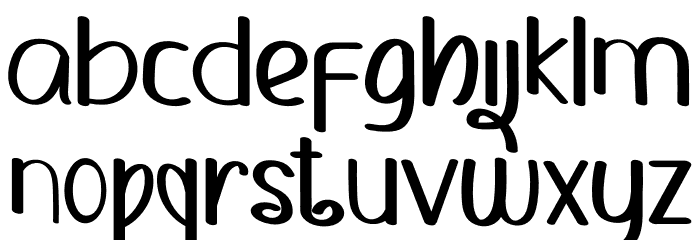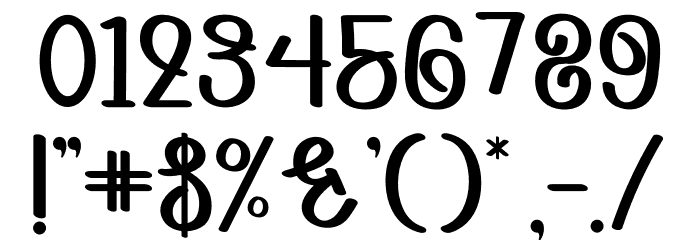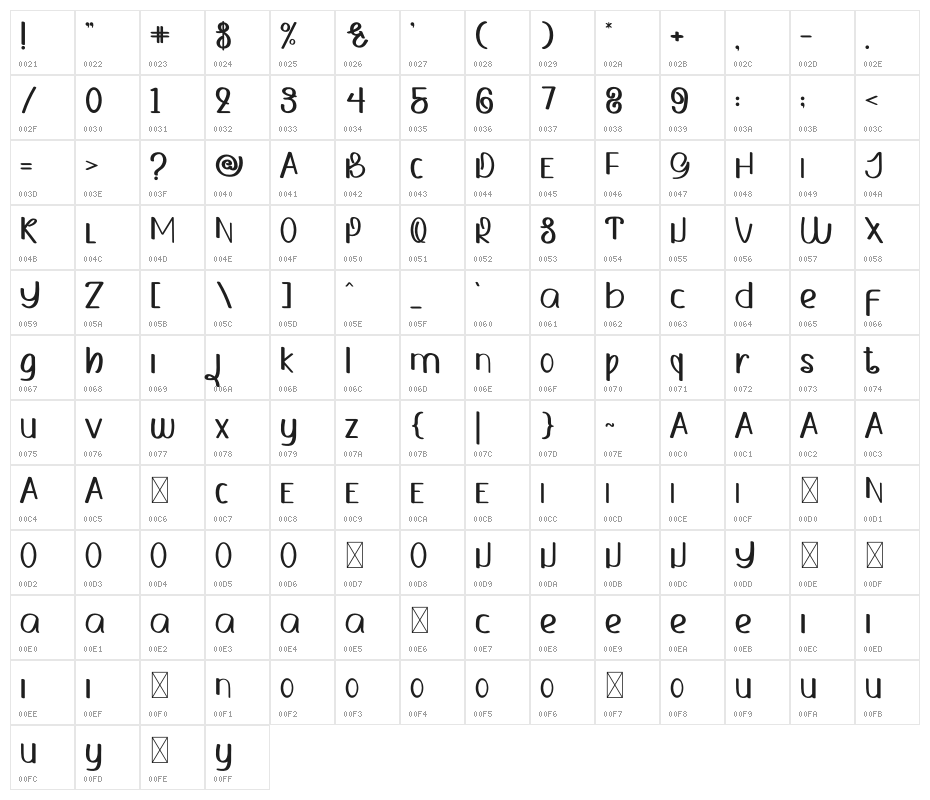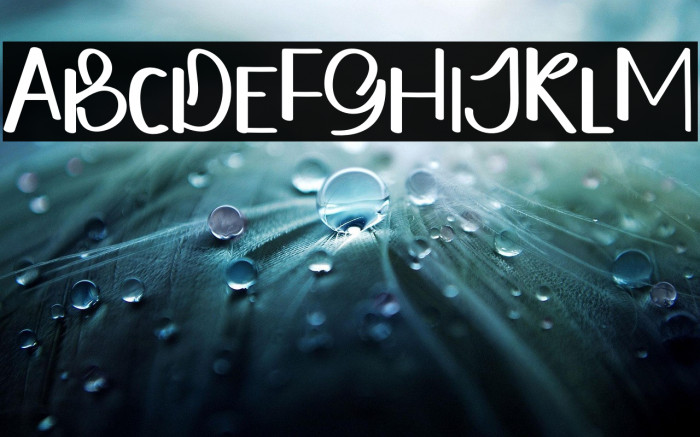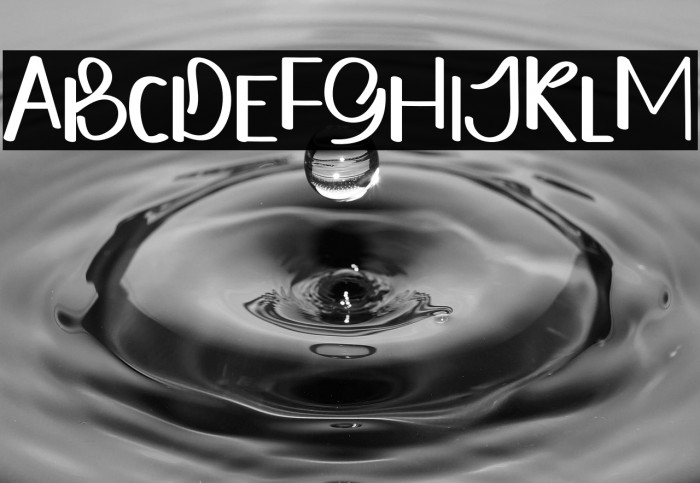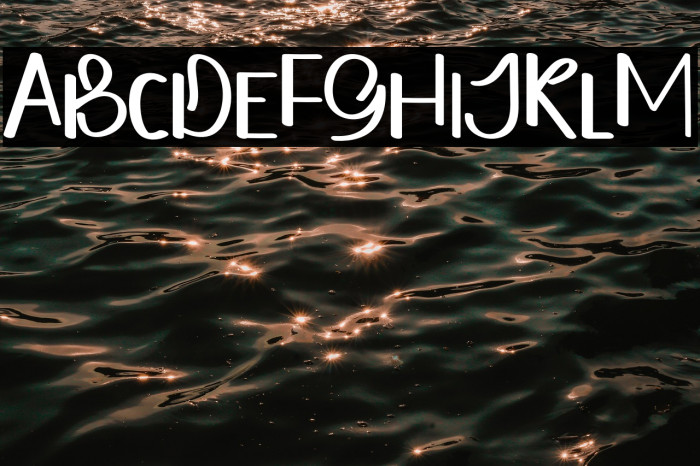
FRESH FOOD Font
This playful and whimsical font features a unique blend of rounded and angular elements, creating a lively and engaging appearance. The uppercase letters are bold and slightly condensed, with distinctive curves and loops that add character. The lowercase letters maintain a consistent style, with smooth transitions and a friendly demeanor. Numbers are well-integrated, sharing the same playful characteristics as the letters. Special characters are thoughtfully designed, complementing the overall aesthetic. This font's charm lies in its ability to convey a sense of fun and creativity, making it ideal for projects that require a touch of personality.
A playful and whimsical font with rounded and angular elements, perfect for creative projects.
- Font: FRESH FOOD
- Proposed Projects: Ideal for children's books, playful branding, creative posters, and fun social media graphics.
- Overall Style: Playful, Whimsical